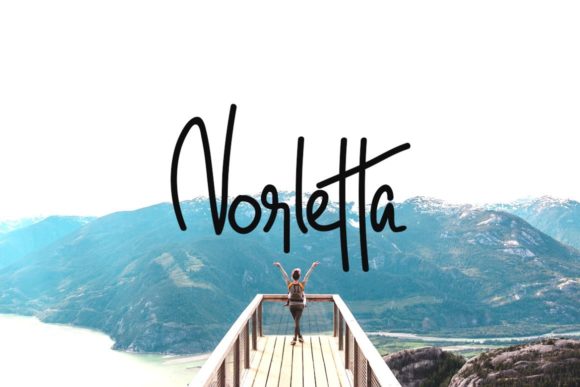
Journey into the world of digital aesthetics and introduce your creative projects to Norletta Font - an enchanting script crafted to captivate and inspire. This whimsical and subtly quirky creation from Designova is not just a font; it's a gateway to a world of limitless expression and visual delight.
Norletta's essence lies in its innate ability to infuse your designs with a touch of lighthearted charm. Its meticulously crafted curves and playful personality dance across the screen, leaving a trail of joy and intrigue in their wake. Whether you're weaving words into captivating logos, crafting eye-catching social media graphics, or designing invitations that exude warmth, Norletta is your perfect companion.
With its innate versatility, Norletta effortlessly adapts to a myriad of digital and print endeavors. Let your creativity soar as you explore the boundless possibilities it offers. Adorn your website with headers that radiate warmth and friendliness, craft brochures that resonate with a touch of whimsy, or create product labels that speak volumes about your brand's unique character.
Norletta is more than just a collection of letters and symbols; it's an invitation to unleash your creativity and forge connections with your audience. Its playful spirit and undeniable charm will add a spark of individuality to every project you undertake. Embrace the magic of Norletta and watch as your designs transform into enchanting expressions of your imagination.